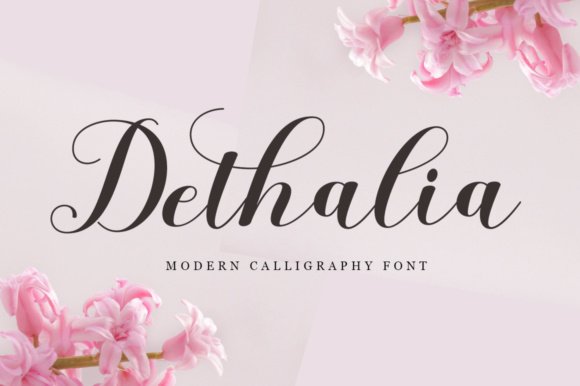
The Perfect Blend of Elegance and Whimsy: Dethalia Script Font
There’s something magical about the moment when a font speaks directly to your soul. For designers, this moment is often a game-changer – it’s the spark that ignites a new project, a fresh idea, or a bold creative direction. For me, that moment came when I stumbled upon the Dethalia Script Font. This modern calligraphy font has a way of transporting you to a world of elegance and whimsy, where beautiful swashes dance across the page.
The Dethalia Script Font is a versatile tool designed to add a touch of personality to your designs. Whether you’re crafting a wedding invitation, a branding package, or a social media graphic, this font is sure to bring your vision to life. Its casual, pretty style makes it a valuable addition to any designer’s toolkit, and its numerous swashes offer endless possibilities for creative expression.
- Unique Characteristics: Hand-drawn, cursive script font with a vintage and elegant feel, ideal for creative and artistic projects
Dethalia Script Font Review
I recently had the chance to work with the Dethalia Script Font, and I must say it’s a beautiful addition to any design project. ✨ The first thing that caught my attention was its elegant, handwritten feel, making it perfect for creating a personal and unique touch to your branding materials.
- ✨ Unique and elegant feel, great for creating a personal brand
- ✨ Versatile, suitable for a wide range of design projects
- ✨ Beautifully crafted, with attention to detail
However, there are some limitations to consider: ⚠️ The font may not be as readable at smaller font sizes, which could make it less suitable for body text. Additionally, it may not be as versatile in terms of bold and italic styles, which could limit its use in certain design contexts.
Overall, I’m impressed with the Dethalia Script Font. It’s a beautiful, high-quality font that can add a touch of elegance to any design project. While it may have some limitations, I believe it’s well worth considering for any designer looking to create unique and eye-catching branding materials.
To get the most out of Dethalia Script Font, use it for:
- Cursive or handwritten text effects.
- Artistic and creative projects.